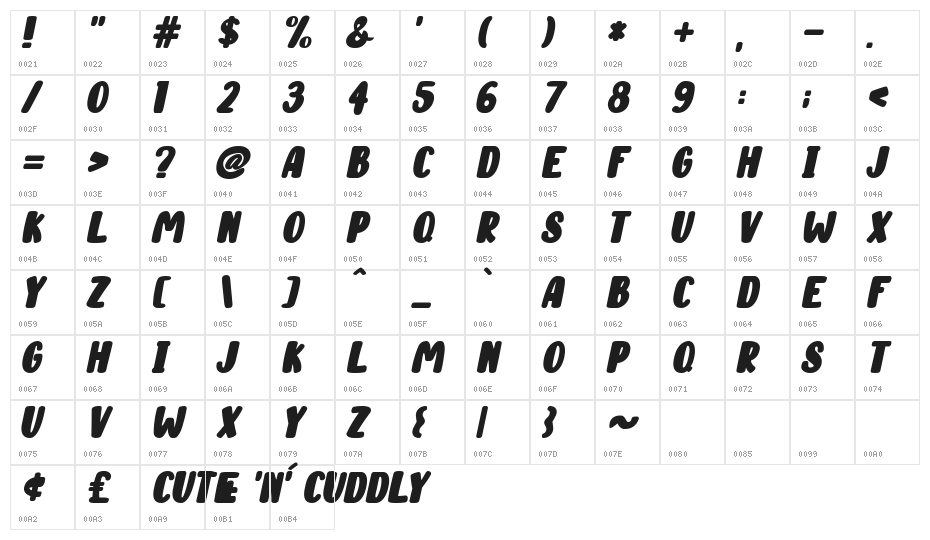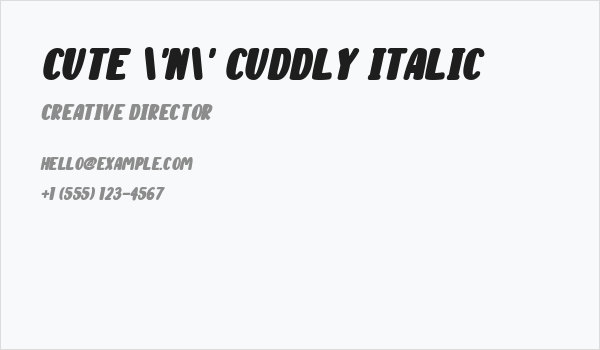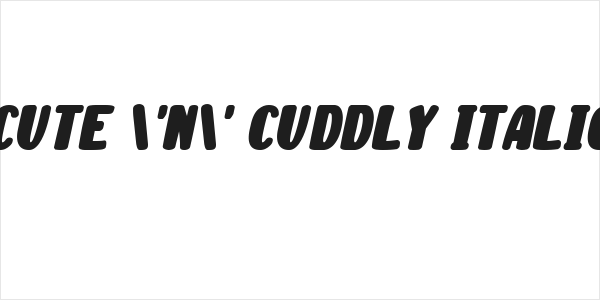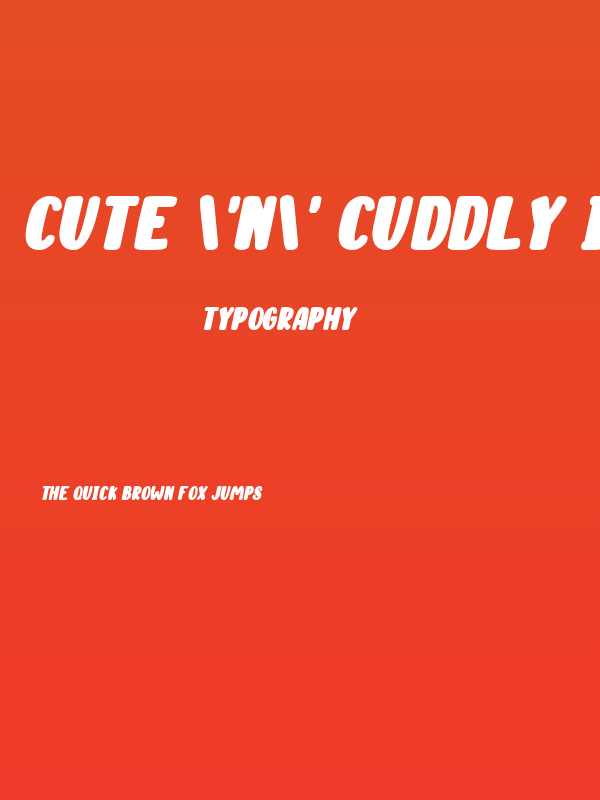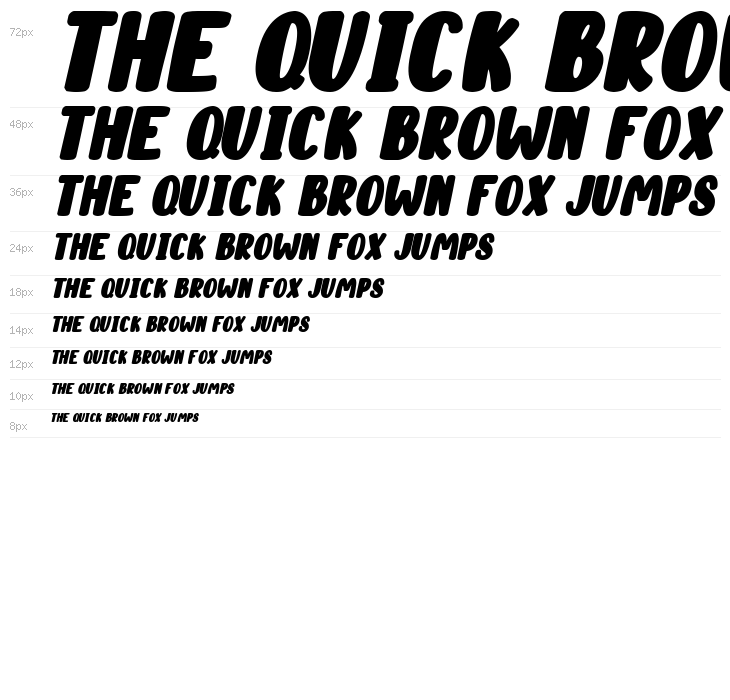
Cute 'n' Cuddly Italic Font
Cute 'n' Cuddly Italic Description
This playful and bold font features rounded, thick strokes that give it a friendly and approachable appearance. The letters are slightly italicized, adding a sense of movement and energy. The overall design is consistent, with smooth curves and a uniform weight throughout each character. The font's boldness makes it highly legible, even at smaller sizes, while the rounded edges soften its impact, making it suitable for a variety of uses. The numbers and special characters maintain the same playful style, ensuring a cohesive look across all text elements.
| Proposed Projects | Ideal for children's books, playful branding, greeting cards, and any project needing a fun and approachable typeface. |